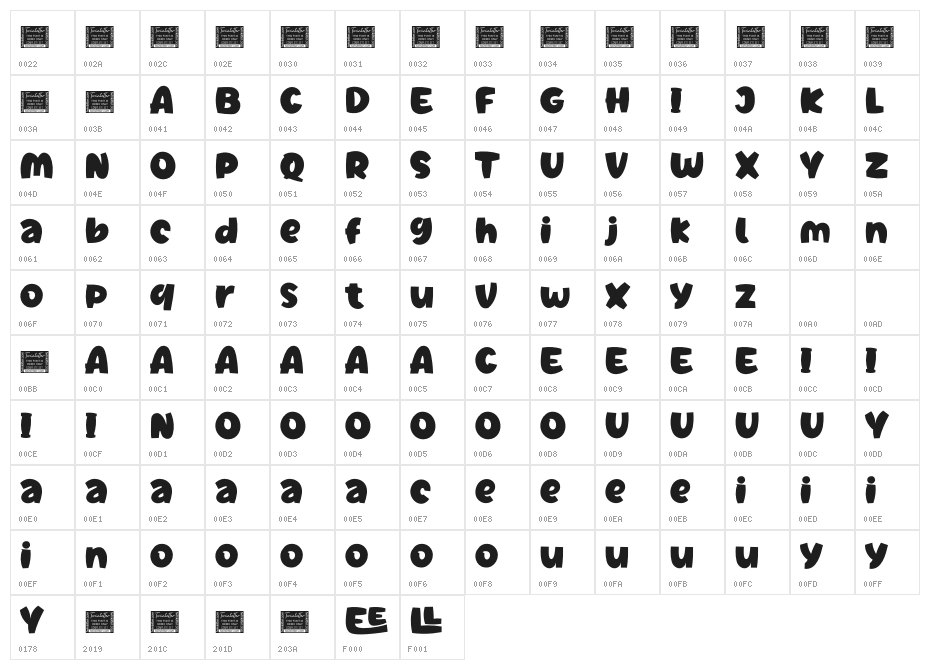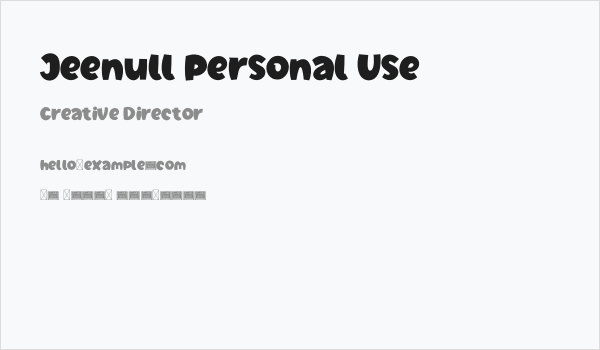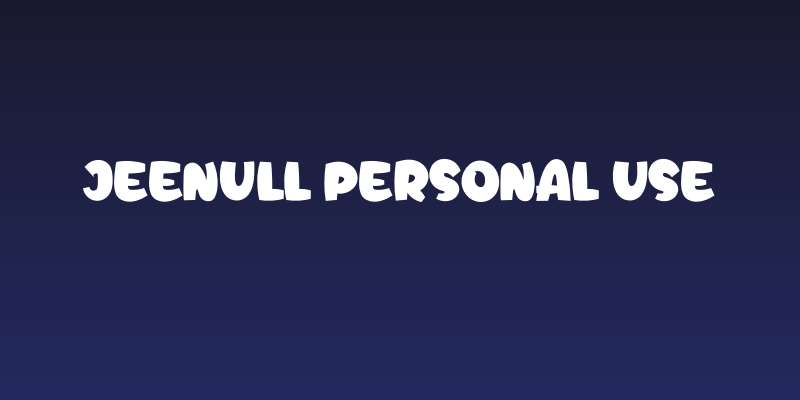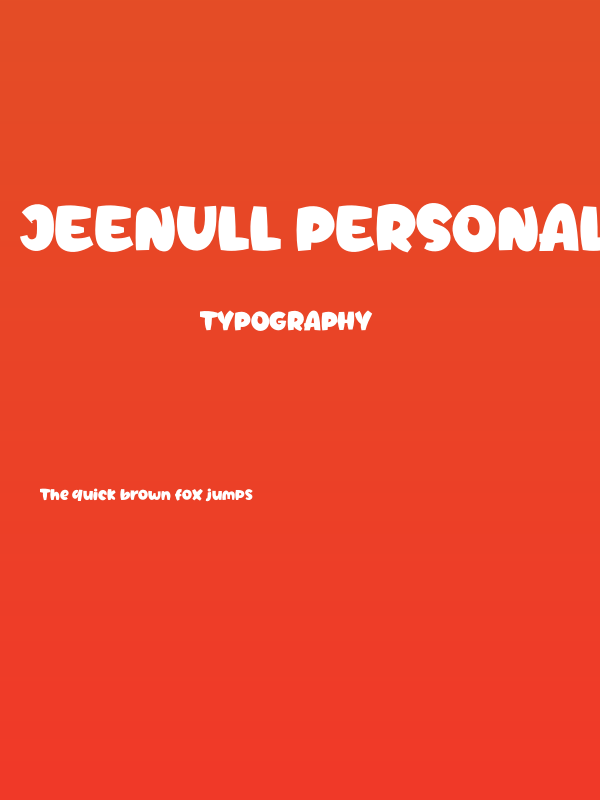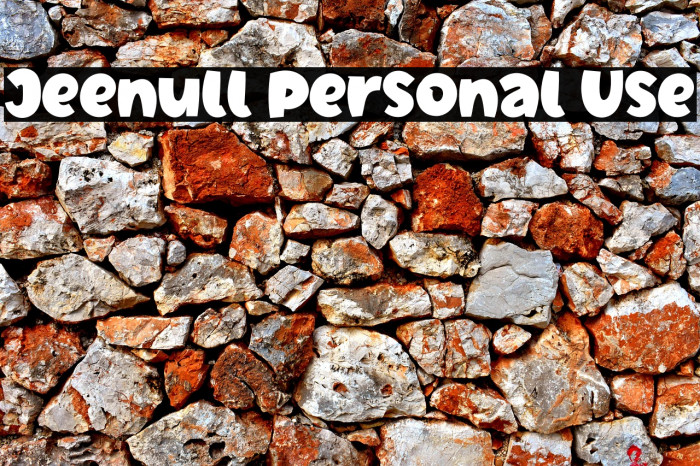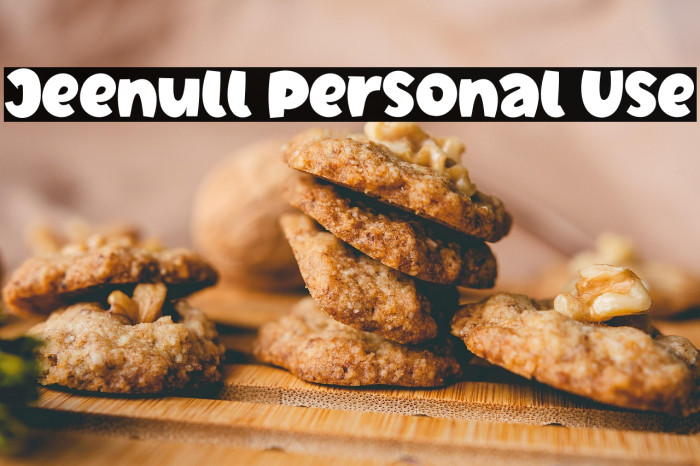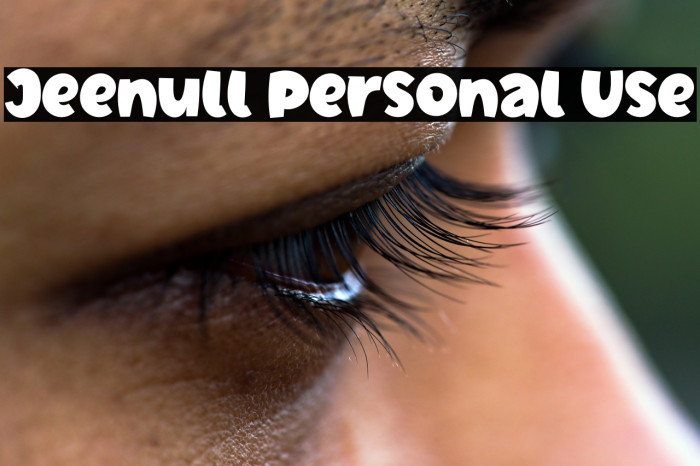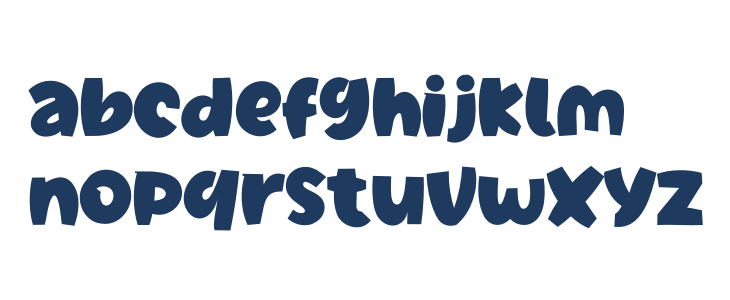
Jeenull Personal Use Font
Jeenull Personal Use Description
This font features a bold and playful design with a unique, chunky style. The characters are rounded and have a slightly irregular shape, giving them a whimsical and friendly appearance. The uppercase and lowercase letters maintain a consistent weight, contributing to a cohesive look. The numbers and special characters follow the same design principles, ensuring uniformity across all glyphs. This font's boldness makes it stand out, while its playful curves add a touch of fun and creativity.
| Overall Style | Playful, Creative |
| Proposed Projects | Ideal for children's books, playful branding, posters, and creative projects that require a fun and bold typeface. |